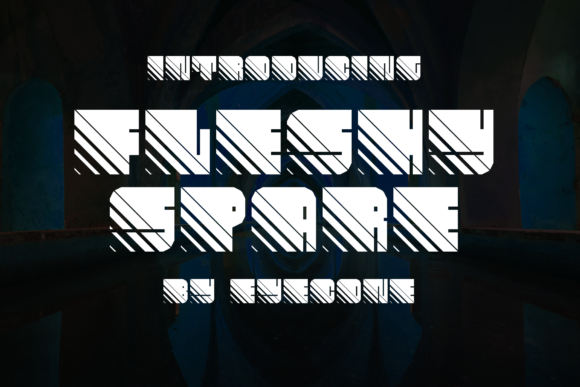
Fleshy Family Font
Unleash your creativity with Fleshy Family Font, a decorative typeface that embodies individuality and artistic flair. This remarkable font family, crafted by EyeCone, presents two distinctive weights: spare and striped, each adding a touch of elegance and charm to your designs.
With its intricate details and captivating curves, Fleshy Family Font transcends the ordinary, transforming your projects into masterpieces. Its spare weight exudes a minimalist allure, while the striped weight introduces a playful touch of pattern, adding depth and dimension to your creations.
Whether you're a seasoned designer seeking to elevate your work or a hobbyist eager to explore the world of typography, Fleshy Family Font is your perfect companion. Its versatility knows no bounds, seamlessly adapting to a multitude of design styles and applications.
Picture your designs adorned with Fleshy Family Font, captivating your audience with its unique charm. Craft stunning logos that leave a lasting impression, create eye-catching posters that command attention, or design enchanting invitations that set the tone for unforgettable events.
Embrace your creativity and embark on a journey of artistic expression with Fleshy Family Font. Witness your designs flourish with an extraordinary touch, leaving a trail of beauty and admiration wherever they go.